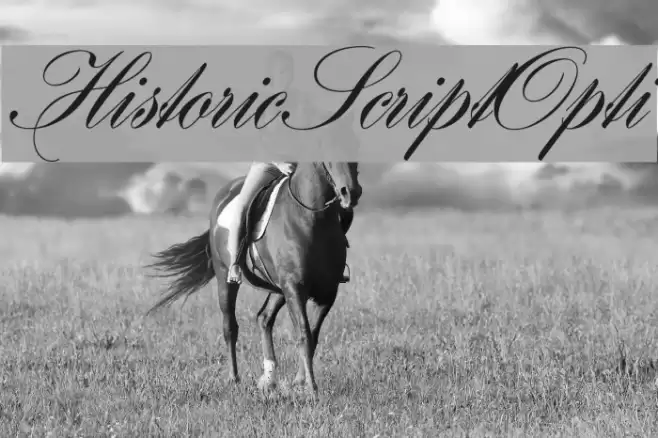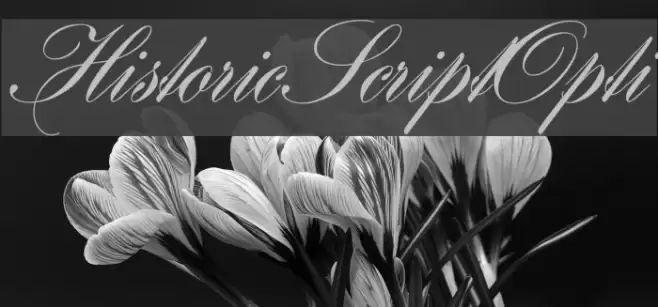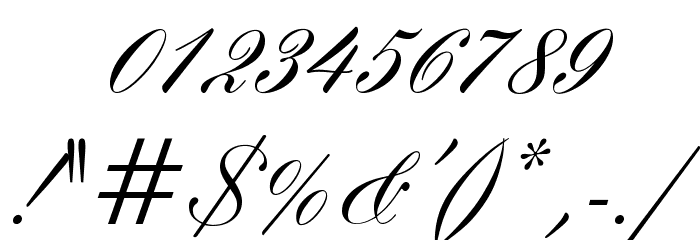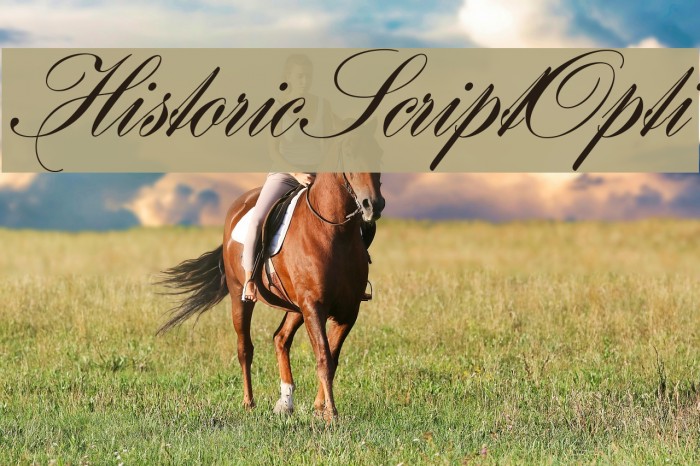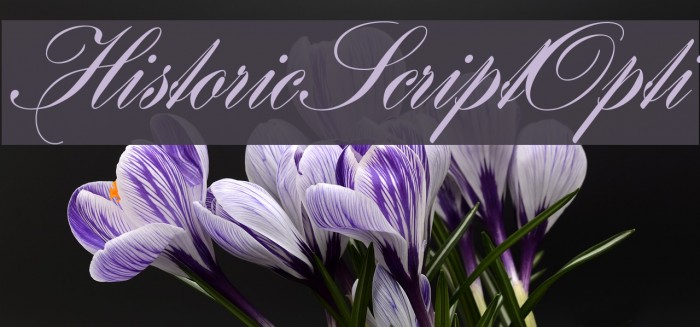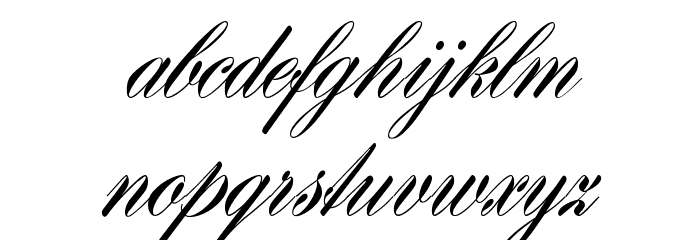
HistoricScriptOpti
This elegant script font exudes a sense of sophistication and historical charm. The letters are intricately designed with flowing curves and delicate swashes, giving it a calligraphic appearance. The uppercase letters are particularly ornate, with extended flourishes that add a touch of grandeur. The lowercase letters maintain a consistent style, with smooth connections and graceful loops. The numerals are equally stylish, complementing the overall aesthetic. This font is perfect for creating a timeless and classic feel in any design project.
An elegant script font with intricate curves and historical charm.
- Proposed Projects: Ideal for wedding invitations, formal event programs, historical documents, and luxury branding.
- Category: Script
- Contrast: High
- Overall Style: Classic
- Use Case: Headlines, Invitations, Logos